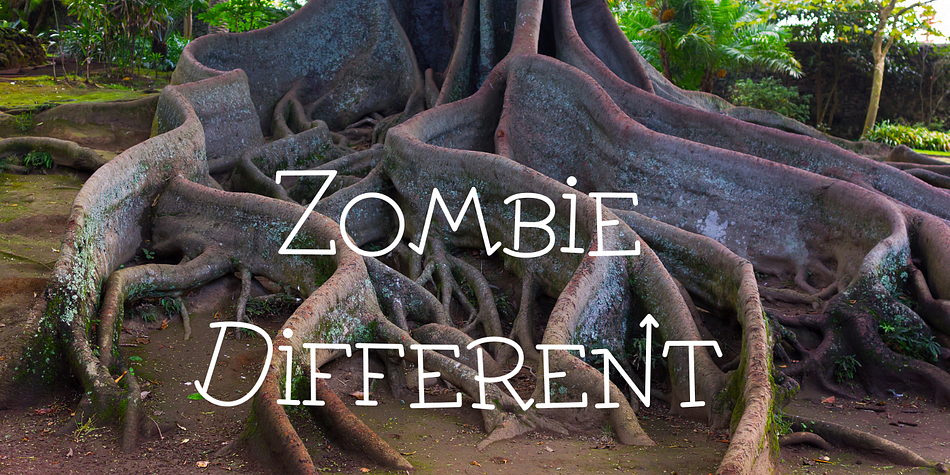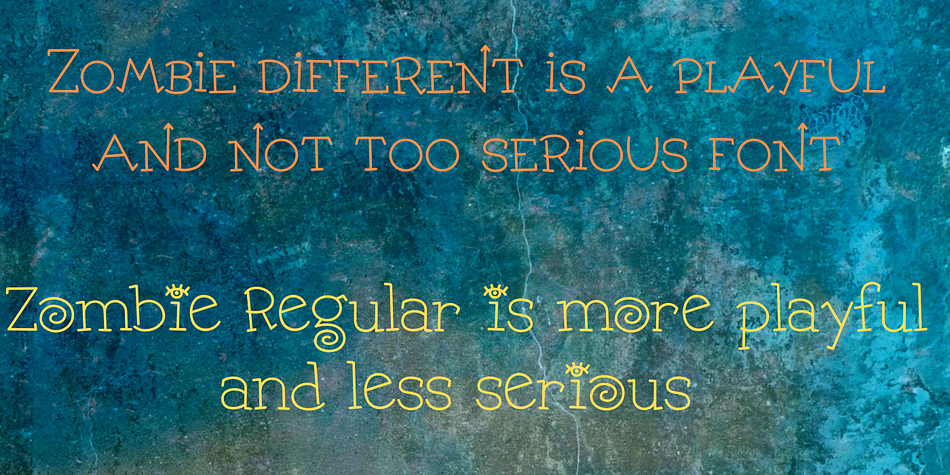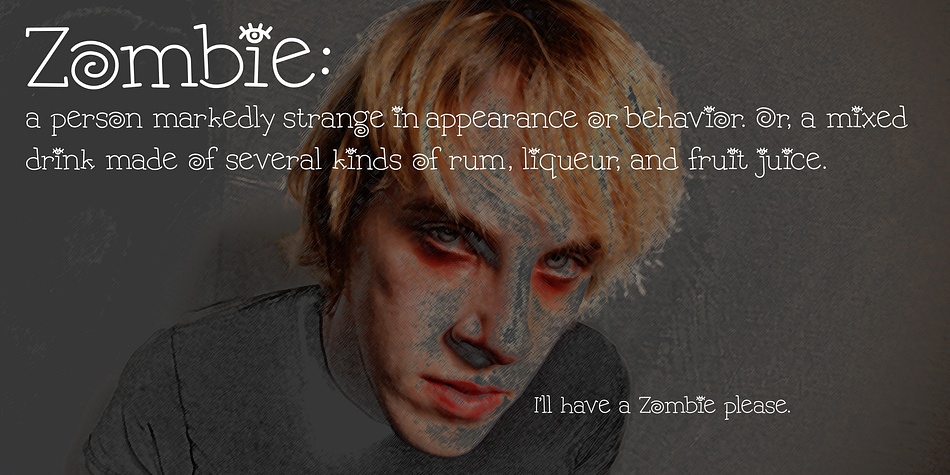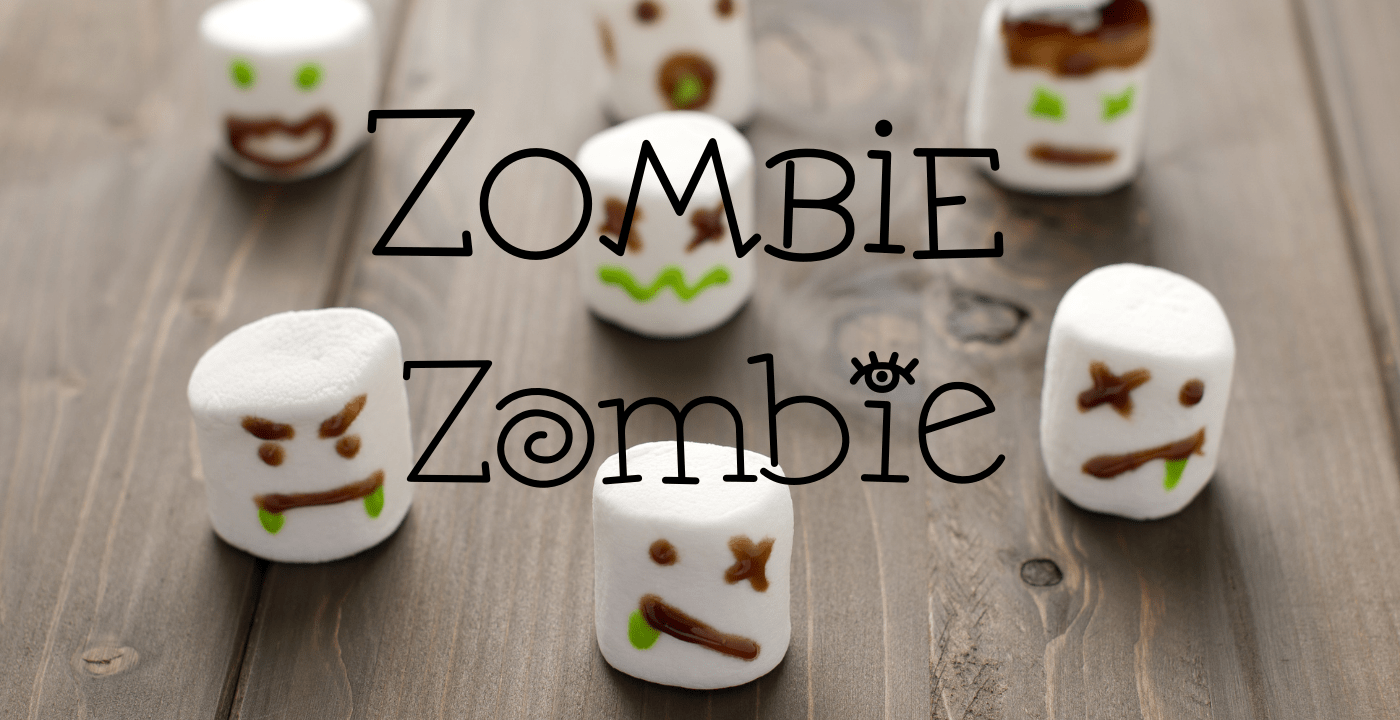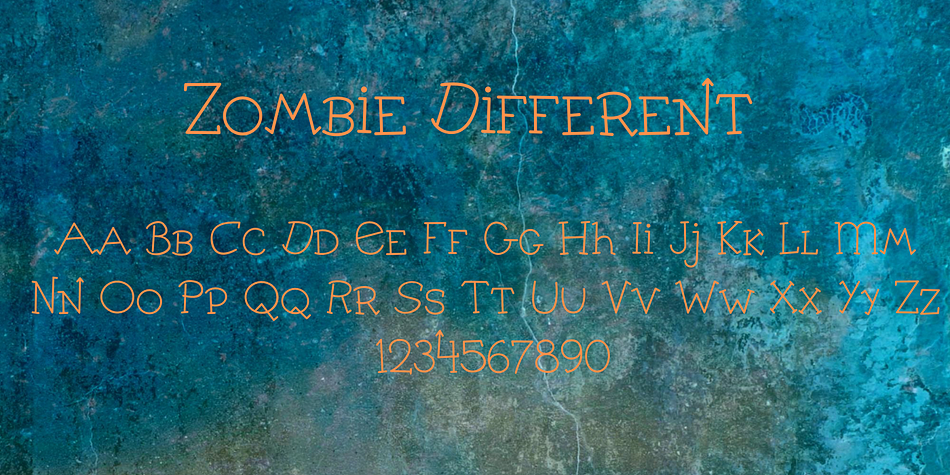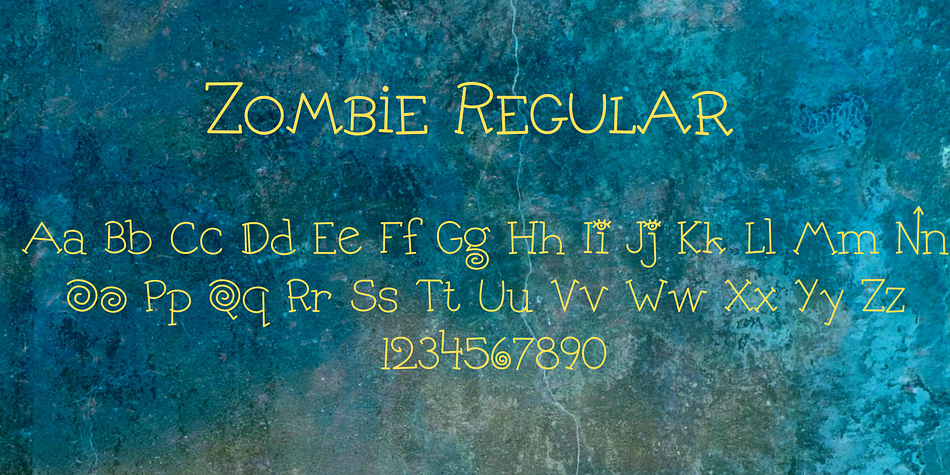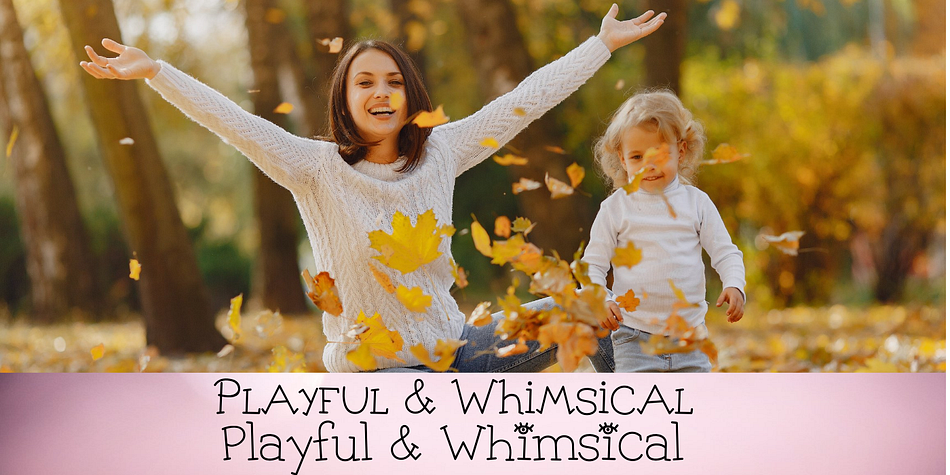
Zombie
Zombie is a hand display, hand drawn and kids font family. This typeface has two styles and was published by FontHaus.
Zombie™  is a cute and playful whimsical font unlike a real Zombie. This monoline display face does not take itself too seriously and is at home in children’s books,  invitations, headlines or other decorative design projects.